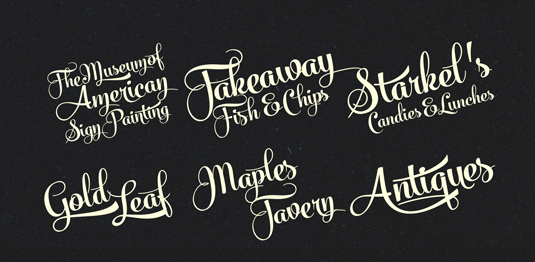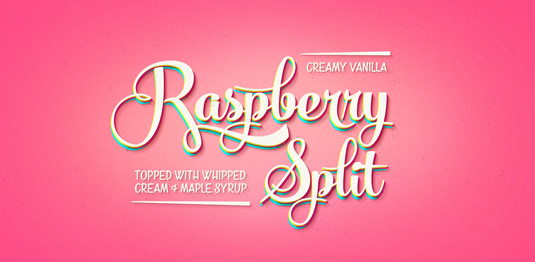
Font of the day: Skipper
Each day of the week we showcase one of our favourite fonts – today it's Skipper by Emil Karl Bertell.
Skipper by Emil Karl Bertell
Finnish type designer Emil Karl Bertell is no stranger to our font of the day posts, with a number of the creative's brilliant typefaces already featured. And today's offering, Skipper, is no exception. A bold and flowing connected script font, Skipper is equipped with three alternate characters for every basic letter.